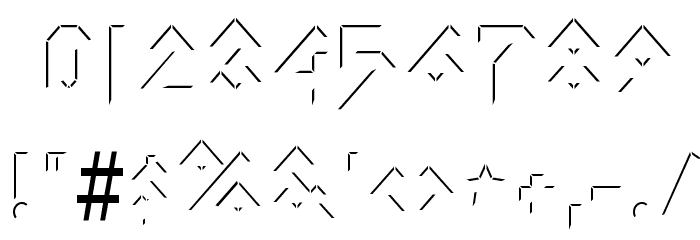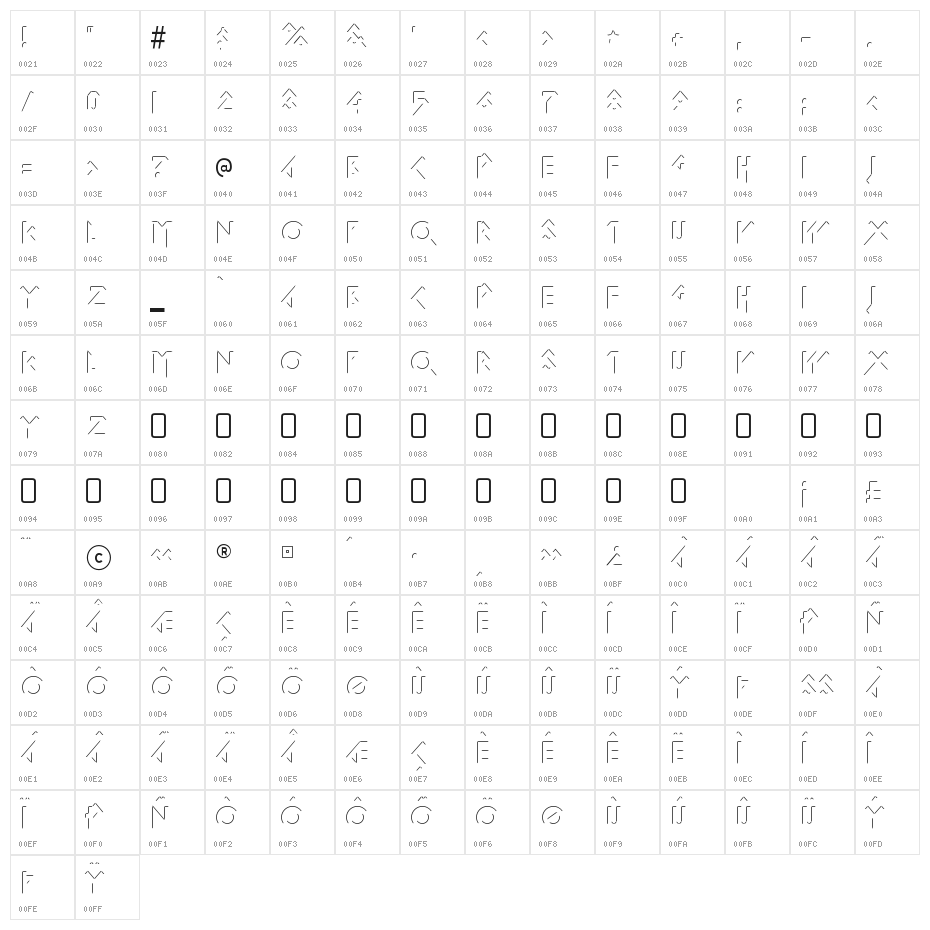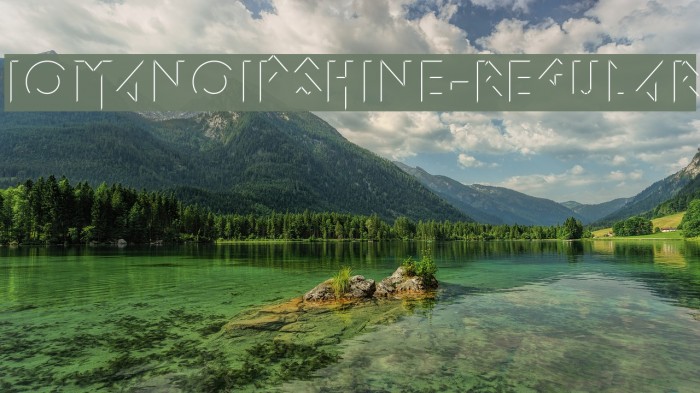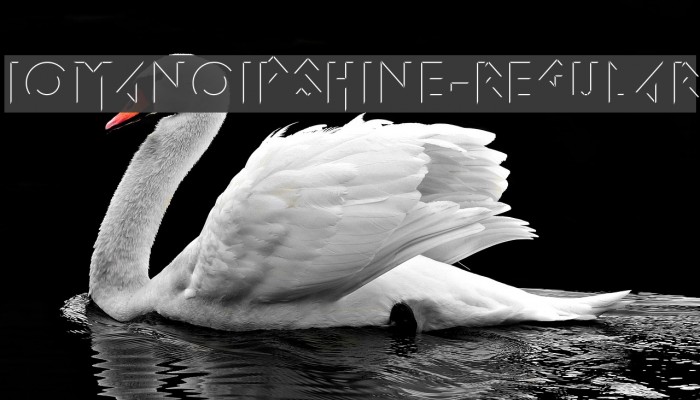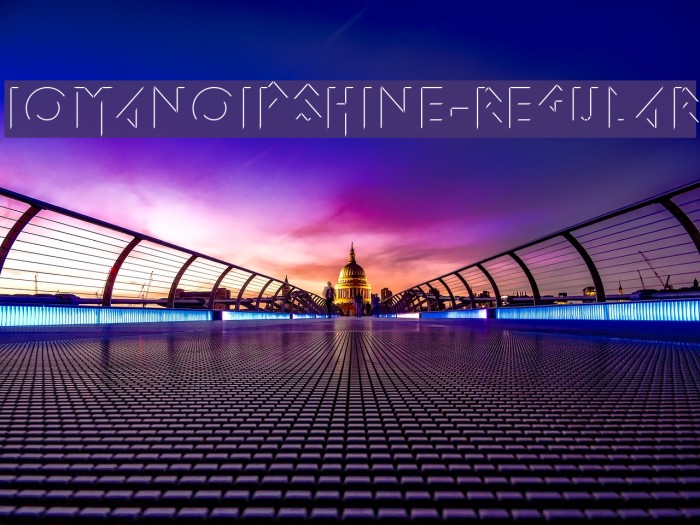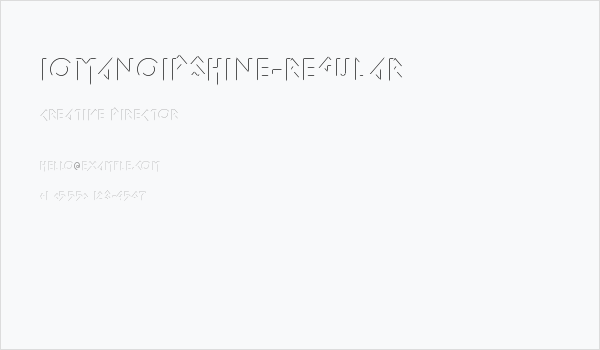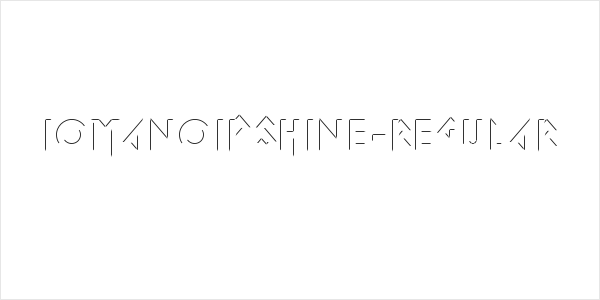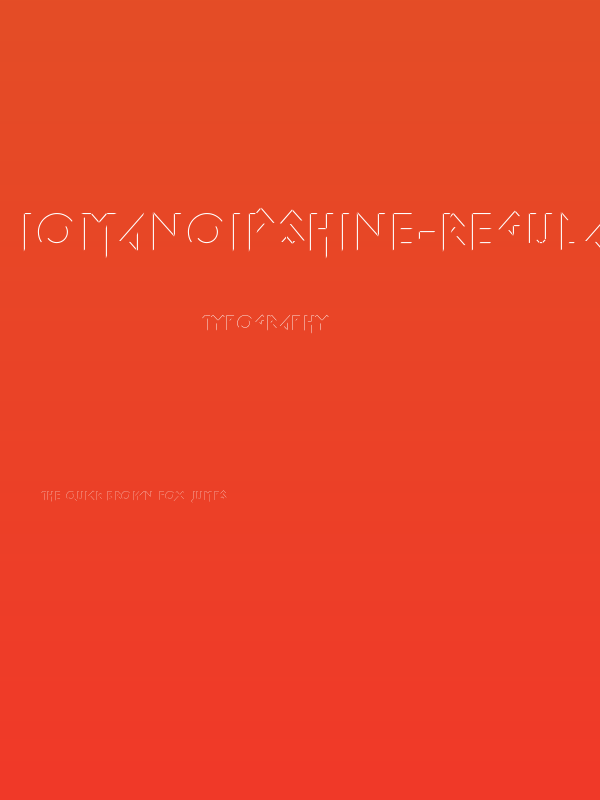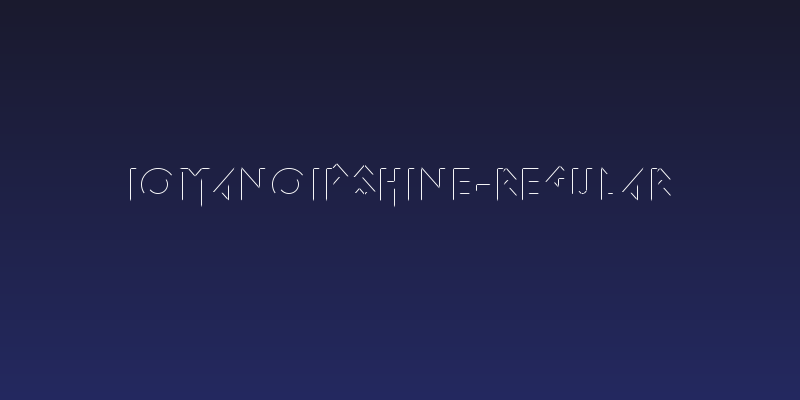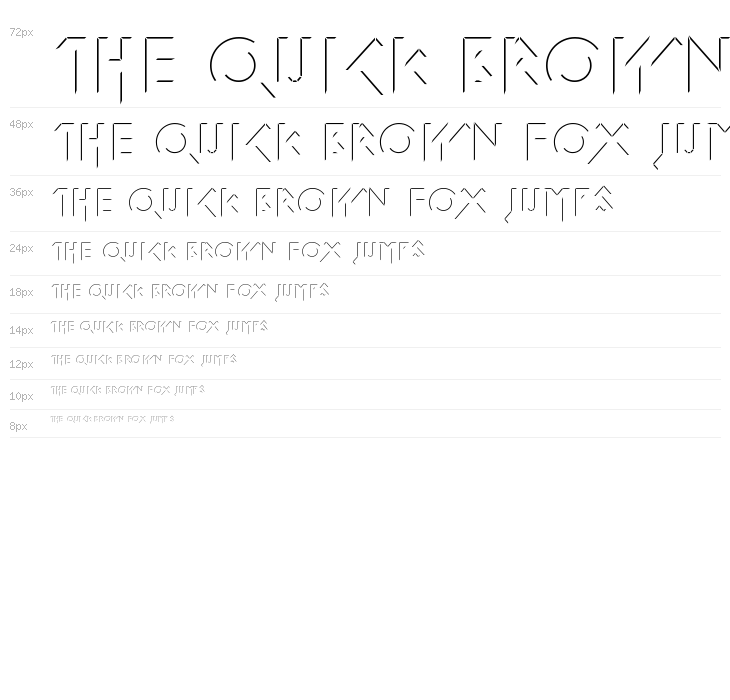
IomanoidShine-Regular Font
IomanoidShine-Regular Description
This font features a futuristic and geometric design, characterized by sharp angles and a minimalist aesthetic. Each character is constructed with a series of straight lines and precise cuts, creating a sense of modernity and innovation. The font's unique style is reminiscent of digital or sci-fi themes, making it ideal for projects that require a cutting-edge look. The uppercase and lowercase letters maintain a consistent style, with numbers and special characters following the same geometric pattern. The overall appearance is clean and structured, with a focus on symmetry and balance.
| Proposed Projects | Ideal for tech branding, sci-fi movie posters, video game titles, and digital interfaces. |